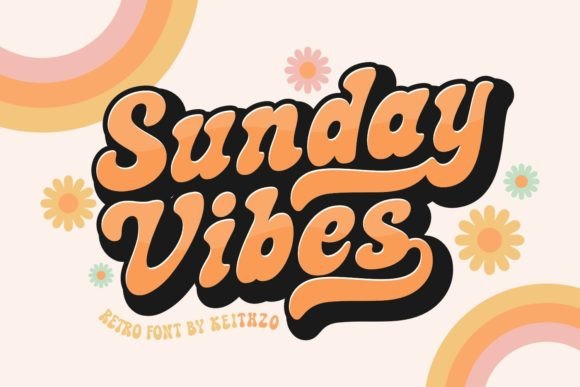
Introducing Sunday Vibes Font, the ultimate choice for designers seeking to infuse their creations with a carefree and retro vibe. Crafted by the talented Keithzo from 7NTypes, this groovy script display font is guaranteed to transport your designs back to the iconic hippie era of the 1960s and 70s.
With its fluid, hand-drawn lines, Sunday Vibes Font captures the essence of nostalgia and rebellion. Each letterform is meticulously designed to feature exaggerated loops, swirls, and curves, resulting in a playful and whimsical appearance that is sure to captivate your audience.
Ideal for larger sizes, Sunday Vibes Font shines when used for headlines, titles, or any design project that aims to evoke a sense of carefree bliss. Whether you're working on a travel poster, a music album cover, or a vintage-inspired branding project, this font is your ultimate companion.
Imagine your travel poster adorned with the captivating strokes of Sunday Vibes Font. Instantly, your audience will be transported to a bygone era, feeling the wanderlust and adventure that only a carefree Sunday afternoon can bring. Let the font do the talking and watch as your designs come alive with an irresistible charm.
But Sunday Vibes Font is not just about aesthetics. It is also a powerful tool for conveying emotions and creating memorable experiences. The unique combination of fluid lines and retro vibes allows you to communicate joy, freedom, and rebellion with every letter. Let your designs speak volumes and leave a lasting impression on your audience.
Don't settle for ordinary fonts that lack personality and impact. Stand out from the crowd and let Sunday Vibes Font be your secret weapon in capturing attention and engaging your target audience. Say goodbye to dull and lifeless designs and embrace the vibrant energy that this font brings to the table.